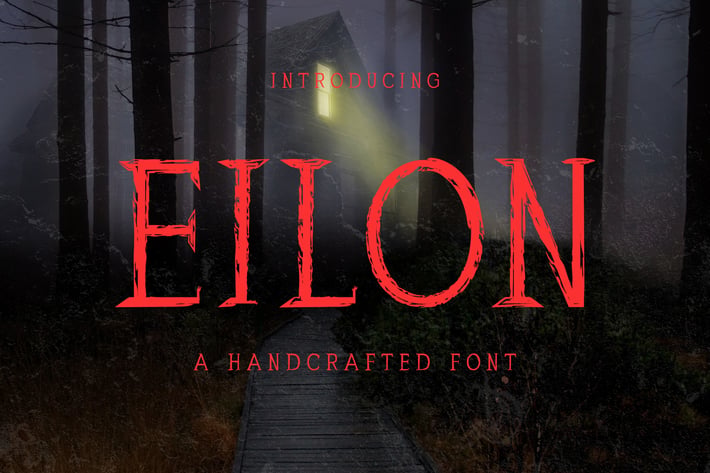
Elion Handcrafted Font
Elion is a horror, creepy and mysterious vibe handmade font, it features a spooky look that makes it perfect for any horror/halloween related projects! It contains uppercase, lowercase, number, punctuation, symbols and support multilingual. Elion font is perfect for horror projects but can also be used for various projects like packaging, presentations, logo, headlines, lettering, posters, branding, quotes, titles, magazines headings, web layouts, advertising, invitations, packaging design, books, and nearly any creative design.
Elion Font Features:
- Uppercase Letters
- Lowercase Letters
- Support Multilingual ( Latin Supplement + Latin Extended A)